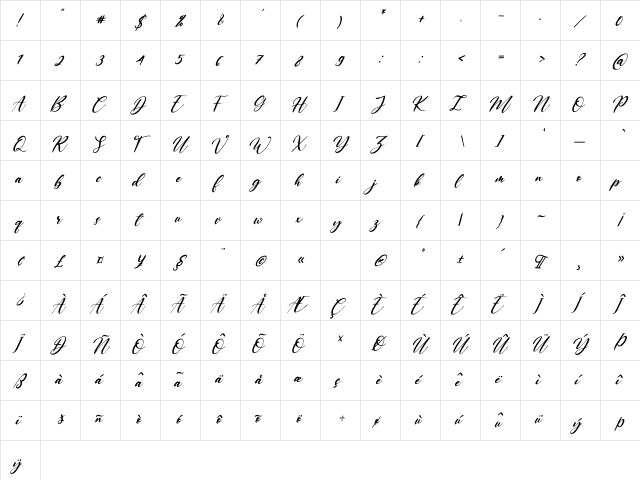
Sublimity Italic Regular
| Foundry | Staircase Studio |
| Designer | Staircase Studio |
Design Context for Sublimity Italic Typeface
Sublimity Italic is a composed and adaptable typeface that performs quietly and consistently across a wide range of design contexts. Its italic angle brings a sense of urgency and motion to the letterforms.
Pro Tip: Use Sublimity Italic for emphasis, pull quotes, and subheadings where its slanted energy can add rhythm to the layout.